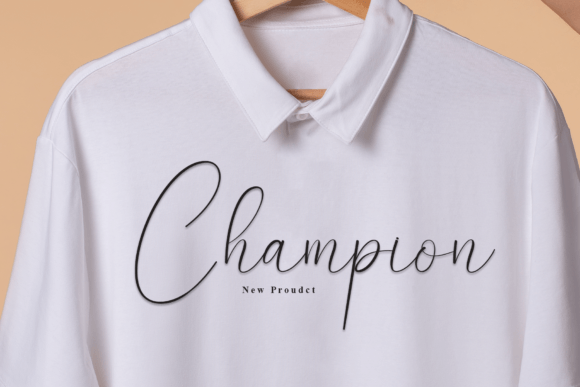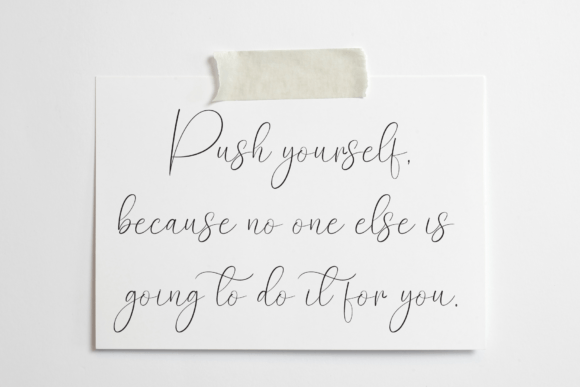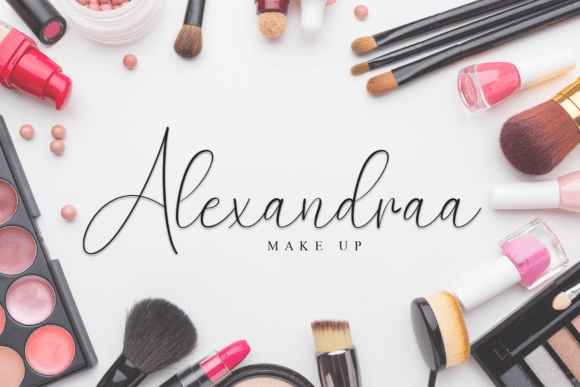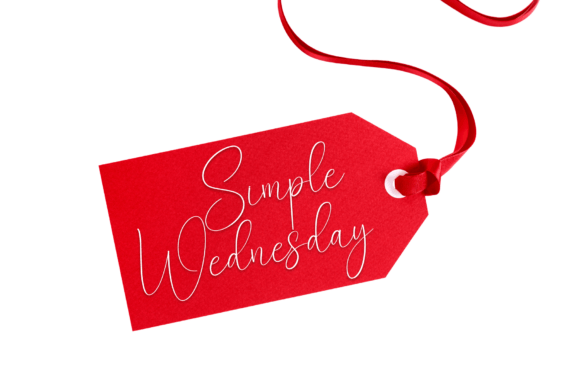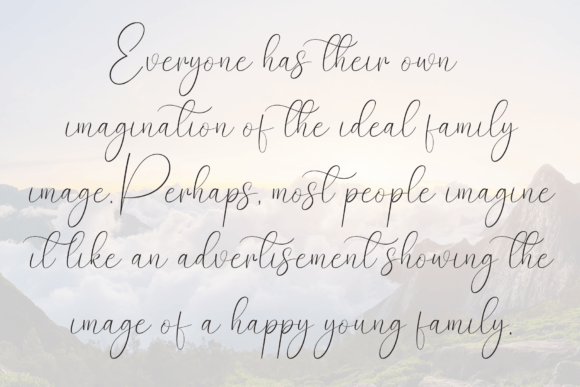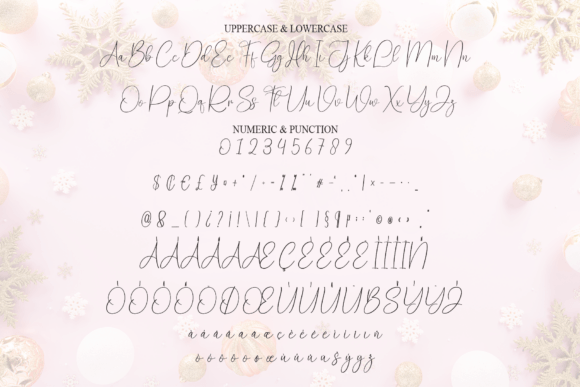
Introducing the Beauty Christmas Font: A Charming Handwritten Script for Your Holiday Designs
The holiday season is upon us, and with it comes the need for festive and eye-catching designs that capture the spirit of Christmas. Whether you’re a designer, crafter, or simply someone who loves to get creative during the holidays, having the right font can make all the difference. That’s where the Beauty Christmas Font comes in – a charming handwritten script font that’s perfect for adding a personal, festive touch to your holiday designs.
What Makes the Beauty Christmas Font So Special?
Beauty Christmas is a beautifully crafted handwritten script font that exudes elegance and warmth. Its flowing letters and charming ligatures bring a sense of joy and festivity to any design, making it perfect for holiday cards, invitations, decorations, and more. With its unique and personal touch, this font is sure to make your designs stand out from the crowd.
Key Features of the Beauty Christmas Font
- Handwritten Script: Beauty Christmas is a genuine handwritten script font, giving your designs a personal and authentic feel.
- Elegant and Flowing Letters: The font features elegant, flowing letters that are perfect for creating beautiful holiday designs.
- Charming Ligatures: The font includes charming ligatures that add a touch of whimsy and festivity to your designs.
- Perfect for Holiday Designs: Beauty Christmas is specifically designed for holiday designs, making it perfect for cards, invitations, decorations, and more.
Uses for the Beauty Christmas Font
The Beauty Christmas Font is incredibly versatile and can be used for a wide range of holiday designs, including:
- Holiday Cards: Add a personal touch to your holiday cards with the Beauty Christmas Font.
- Invitations: Create festive and elegant invitations for your holiday parties and events.
- Decorations: Use the font to create beautiful holiday decorations, such as garlands, banners, and more.
- Social Media Graphics: Add a festive touch to your social media graphics, such as holiday-themed Facebook posts and Instagram stories.
Why Choose the Beauty Christmas Font?
With so many fonts to choose from, why should you choose the Beauty Christmas Font? Here are just a few reasons:
- Unique and Personal: The Beauty Christmas Font is a unique and personal font that will add a touch of elegance and festivity to your designs.
- High-Quality: The font is high-quality and comes with a range of characters, including uppercase and lowercase letters, numbers, and punctuation.